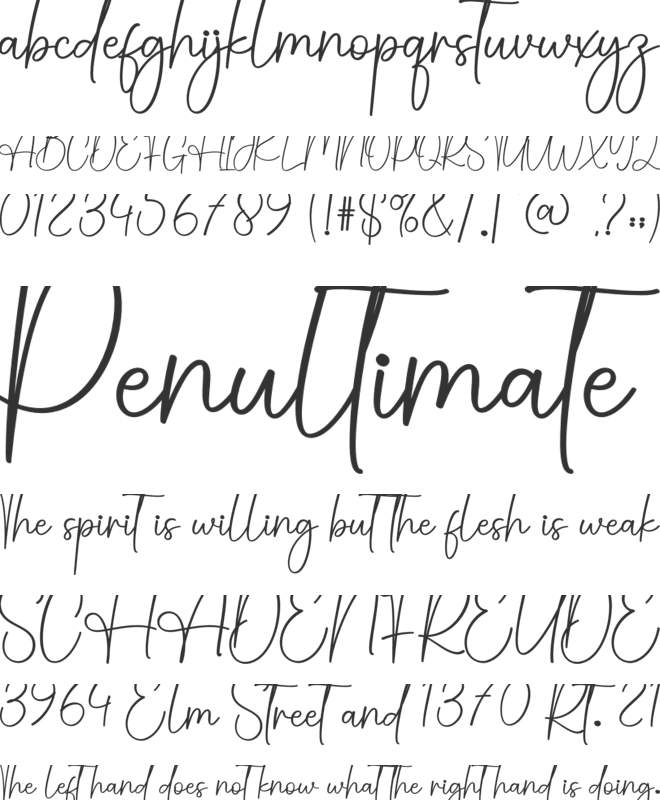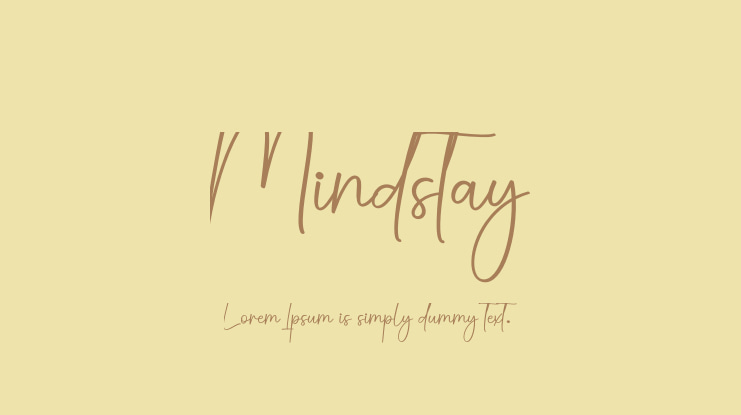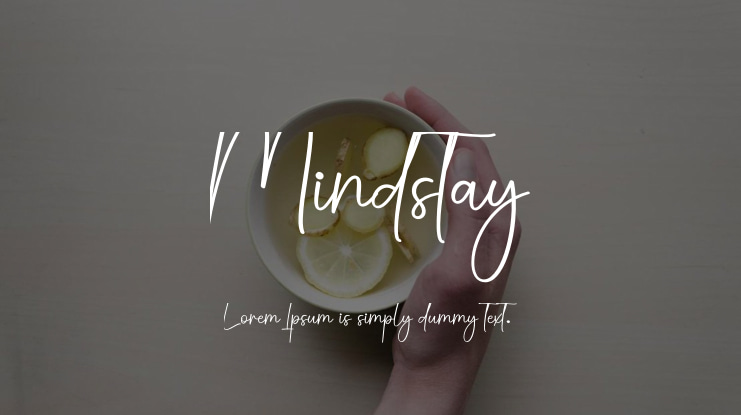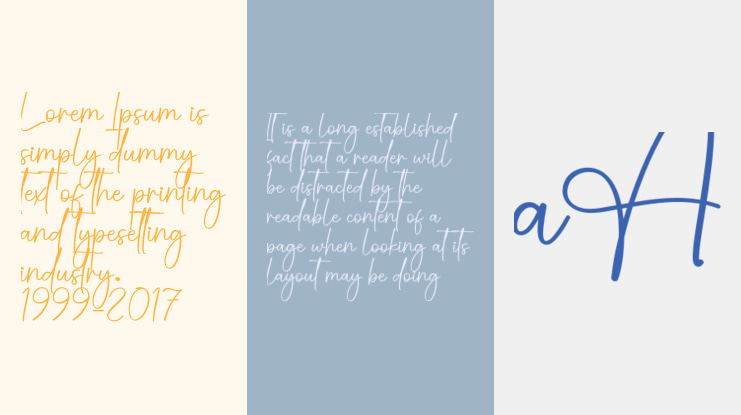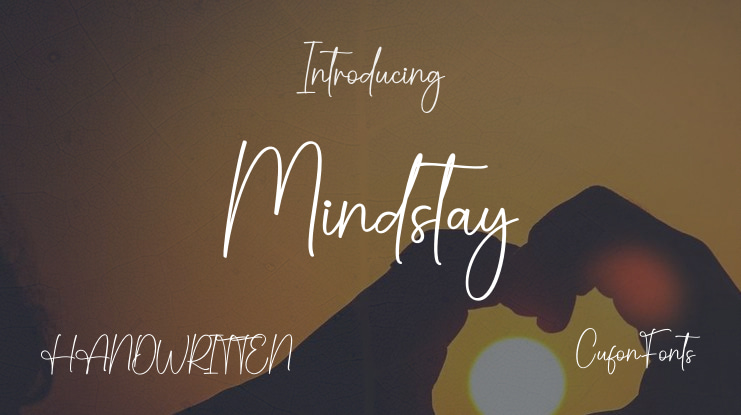
Our latest styled fonts are perfect for: - Wall displays - Wedding invitations - Social media post logos - Advertisements - Product packaging - Product designs - Labels - Photography - Watermarks - Invitations - Stationery - Any project that requires a tasteful handwritten touch.